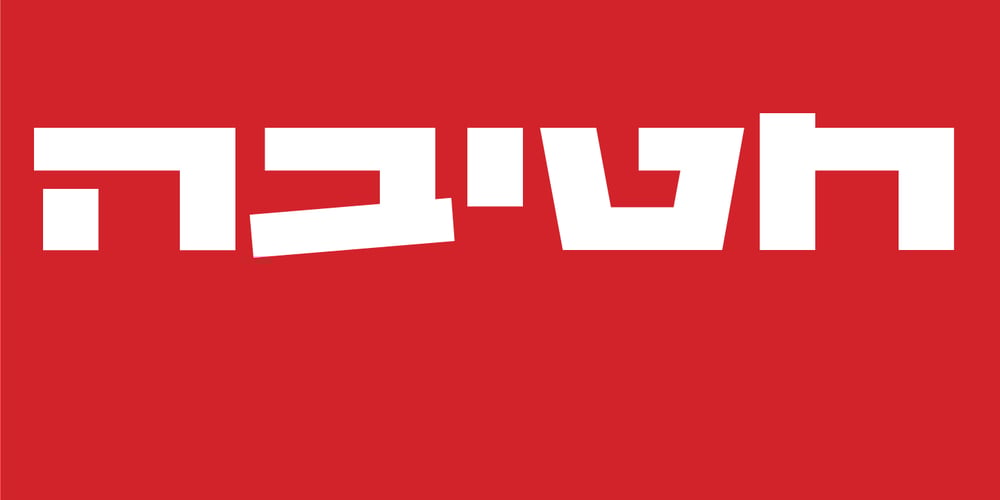
Alphon MF
Alphon MF font
Alphon MF Font Family was designed by Zvika Rosenberg and published by Masterfont. Alphon MF contains 4 styles and family package options. This unique ultra wide font family has its outstanding forms to create a great title.